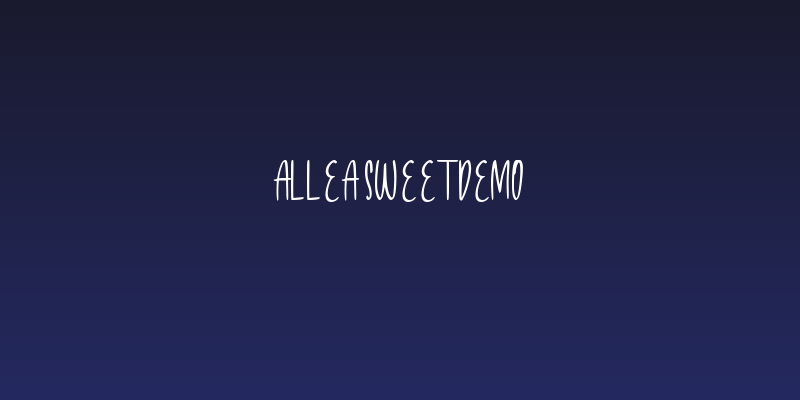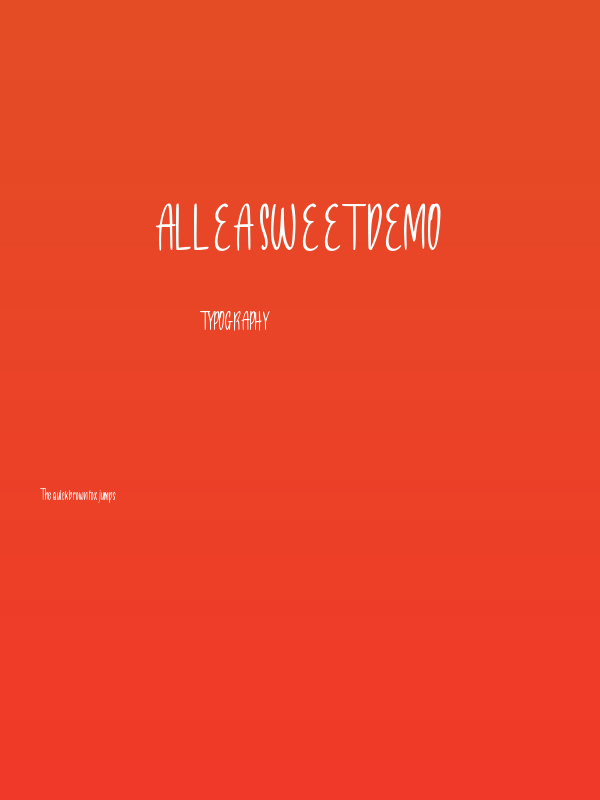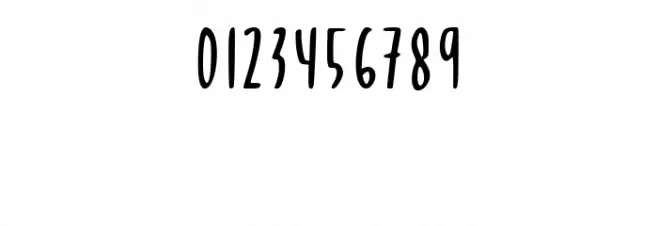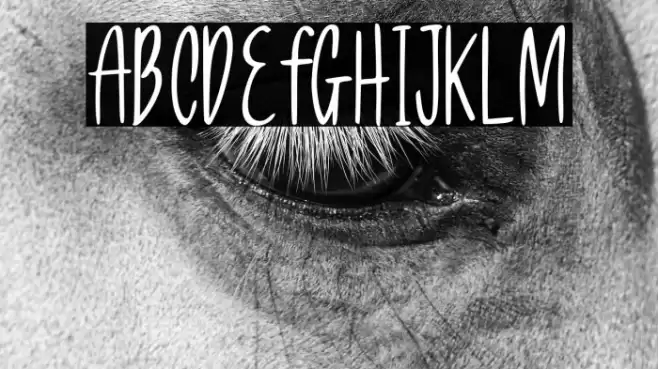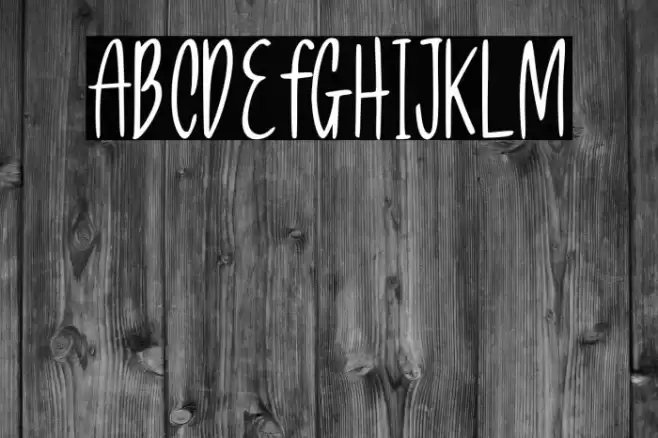
Allea Sweet Demo Font
This font features a playful and casual handwritten style, characterized by its smooth, flowing lines and slightly irregular shapes. The letters have a consistent stroke width, giving it a uniform appearance while maintaining a sense of individuality in each character. The uppercase letters are tall and narrow, while the lowercase letters are more rounded and compact. This font exudes a friendly and approachable vibe, making it suitable for informal and creative projects. The numbers and special characters maintain the same whimsical style, ensuring a cohesive look across all text elements.
| Use Case | Logos, Invitations, Social Media Graphics |
| Proposed Projects | Ideal for greeting cards, invitations, personal branding, and creative social media graphics. |